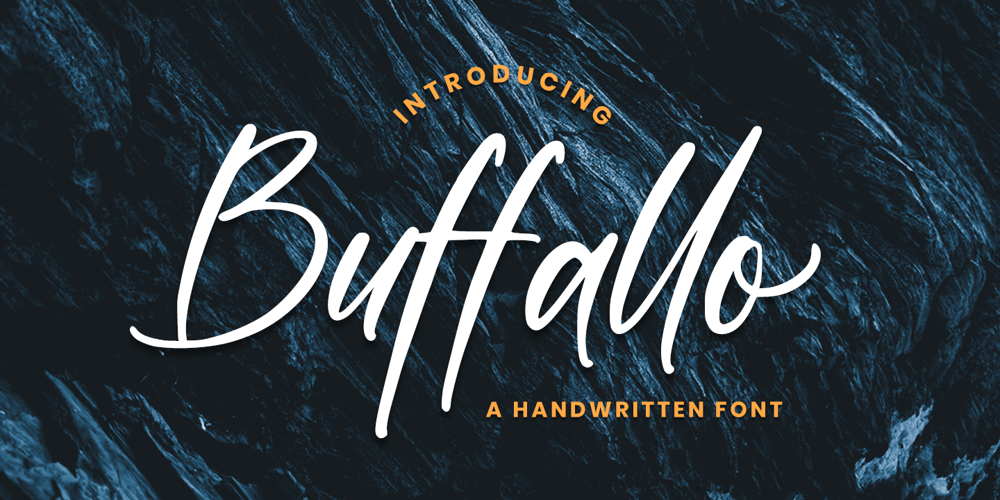
Buffallo Font Family was designed by Hayinah and published by Rockboys Studio. Buffallo contains 1 styles and family package options. Buffallo is a unique and interesting handwritten font. Incredibly versatile, this font will fit a wide pool of designs.What you get:PUA encoded = Accessible in the Adobe Illustrator, Adobe Photoshop, Adobe InDesign, even work on Microsoft Word. PUA Encoded Characters – Fully accessible without additional design software.